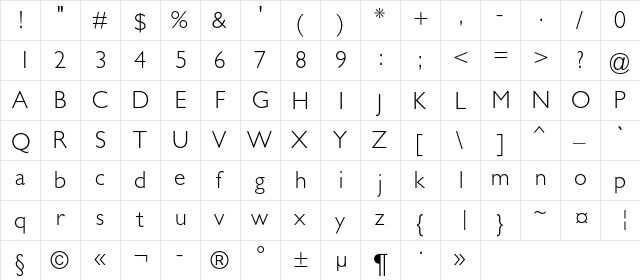
GalsLightC Regular
Design Context for GalsLightC Typeface
GalsLightC takes a measured approach to typography — its balanced proportions and neutral character make it a reliable workhorse for both digital and print work. The delicate stroke weight brings airiness and refinement to layouts.